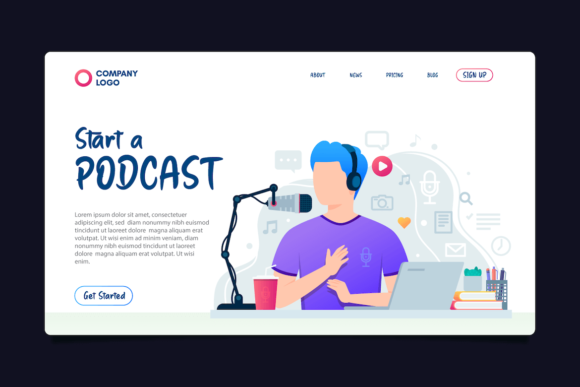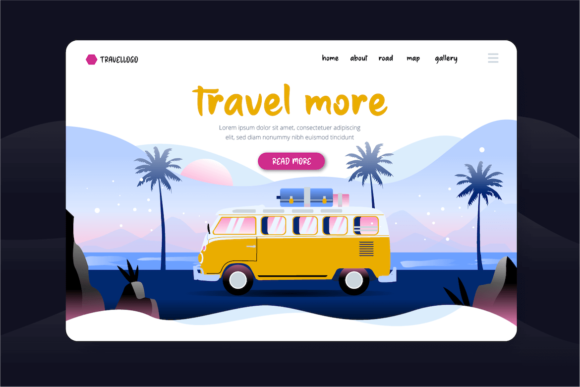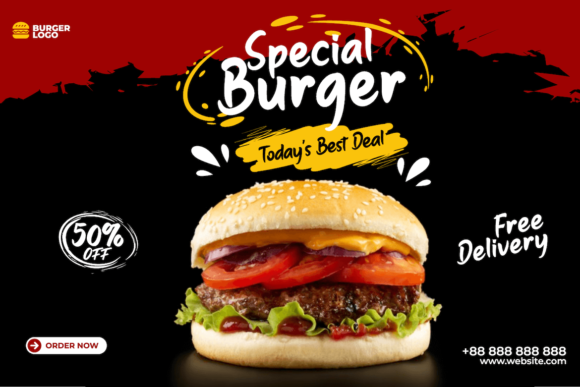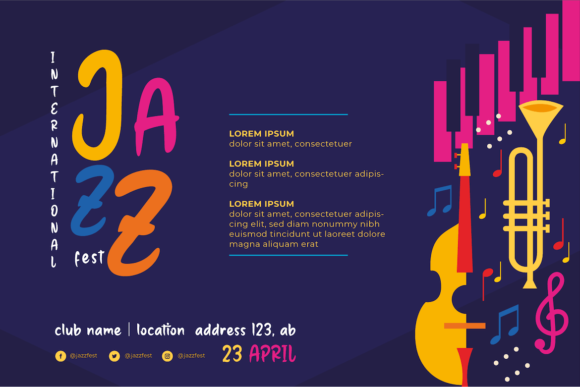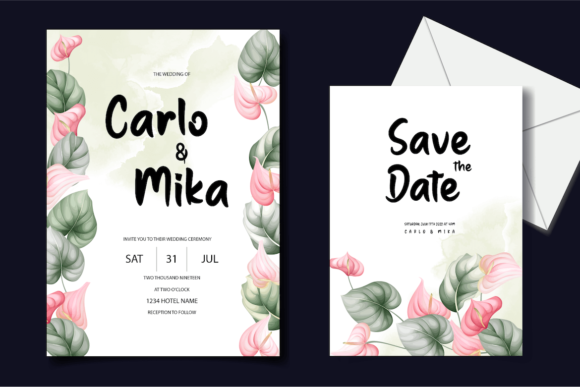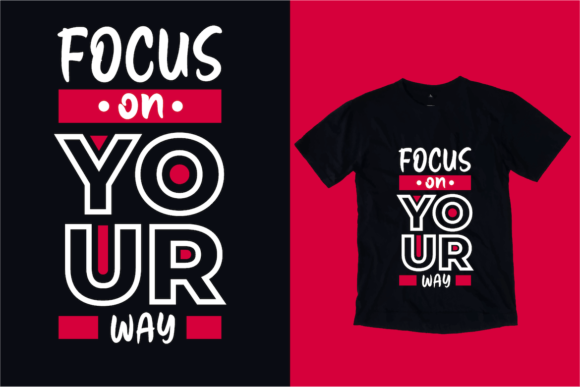
Introduction to Rational Font
As I sat at my desk, staring at a blank canvas, I knew exactly what I needed to bring my creative project to life: the perfect font. That’s when I stumbled upon the Rational Font, a stunning paint-brushed handwritten font that’s as beautiful as it is versatile.
With its unique, stylish aesthetic, the Rational Font is a game-changer for designers. Whether you’re working on a digital design project, crafting a greeting card, or creating a presentation, this font is the perfect addition to your design resource arsenal. And the best part? It’s available for free download, making it an accessible high-quality design element for any creative project.
From its transparent background to its elegant, hand-painted feel, the Rational Font is a valuable asset for any designer looking to add a touch of sophistication to their work.
Key Features of Rational Font
- Rational Font is a high-quality design resource, perfect for any creative project requiring a clean and modern aesthetic.
- Features a transparent background, allowing for seamless integration with any design element.
- Designed with a high resolution of 300 DPI, ensuring crisp and clear typography in any application.
- Rational Font is a compact design, available in a single weight, making it ideal for use in a variety of creative contexts.
Honest Review: Rational Font
- ✨ High-quality design: The Rational Font is well-crafted and visually appealing, making it perfect for creative projects that require a professional touch.
- ✨ Transparent background: The font’s transparent background allows for seamless integration with other design elements, giving you more flexibility in your design.
- ✨ Versatile: The Rational Font is suitable for a wide range of design projects, from logos to typography-based art.
While the Rational Font is an excellent choice for many design projects, there are some limitations to consider:
- ⚠️ Limited font sizes: The Rational Font may not be suitable for large font sizes, as it can become difficult to read.
- ⚠️ Limited font weights: The font family is relatively small, which may limit your options for different font weights and styles.
Overall, I’m impressed with the Rational Font, and I think it’s a great addition to any designer’s toolkit. While it may have some limitations, its high-quality design and versatility make it a valuable resource for any creative project.
Rational Font
Rational Font is a versatile and high-quality design resource ideal for creative projects. This font can be downloaded for free, making it an excellent addition to any design arsenal.
Tips for Getting the Most Out of Rational Font
To get the most out of Rational Font, use it with a transparent background to create visually appealing designs. You can also experiment with different font sizes and styles to achieve the desired look.
Rational Font is ideal for creating logos, graphics, and presentations for various industries, including business, education, and entertainment. It’s also perfect for social media posts, blog articles, and other online content.